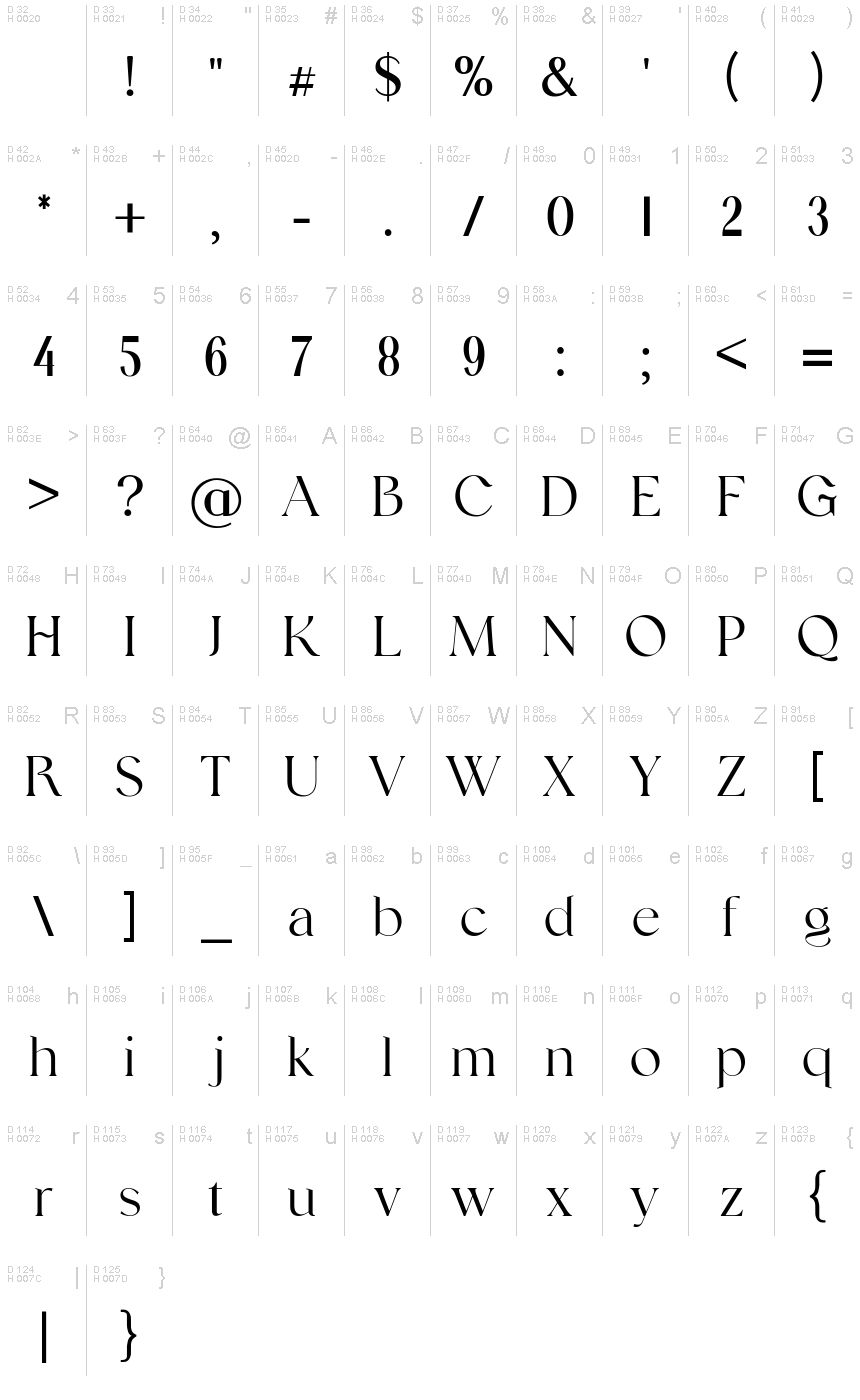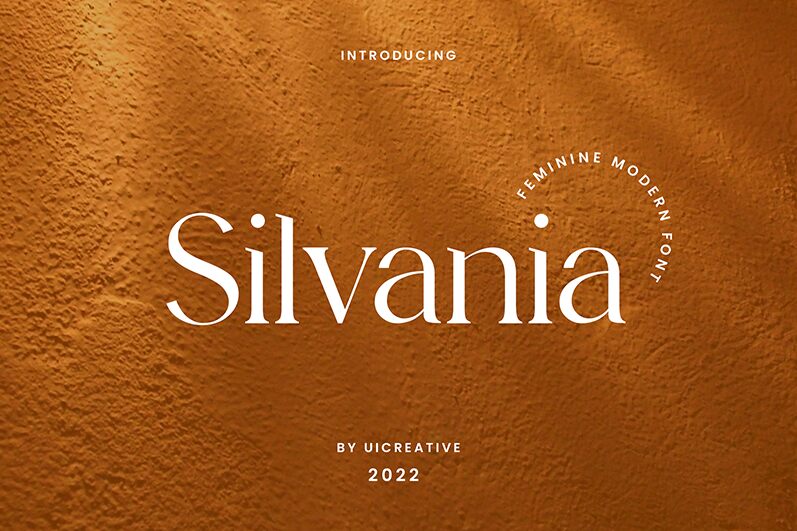
Silvania
Silvania, a captivating serif font crafted by UI Creative, exudes a timeless elegance with its refined strokes and sophisticated flair. This meticulously designed typeface boasts a harmonious balance between tradition and modernity, seamlessly blending classical sensibilities with a contemporary edge. The font's distinctive serifs, complemented by its delicate, yet sturdy letterforms, create a visually striking and alluring aesthetic.
The Silvania font effortlessly lends itself to a wide range of design applications, from editorial layouts and book covers to luxury branding and high-end print materials. Its versatility and polished appearance make it an excellent choice for projects that demand a touch of sophistication and refined appeal, such as corporate communications, editorial design, and prestigious event invitations.